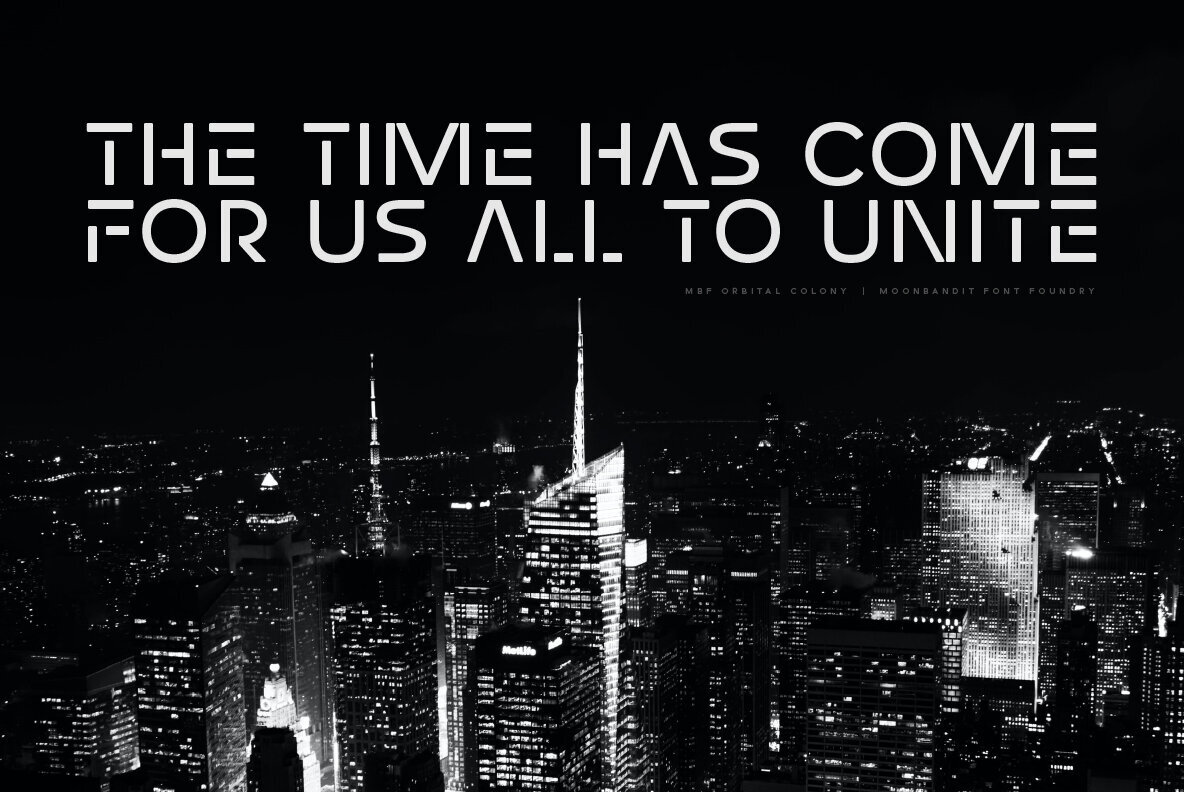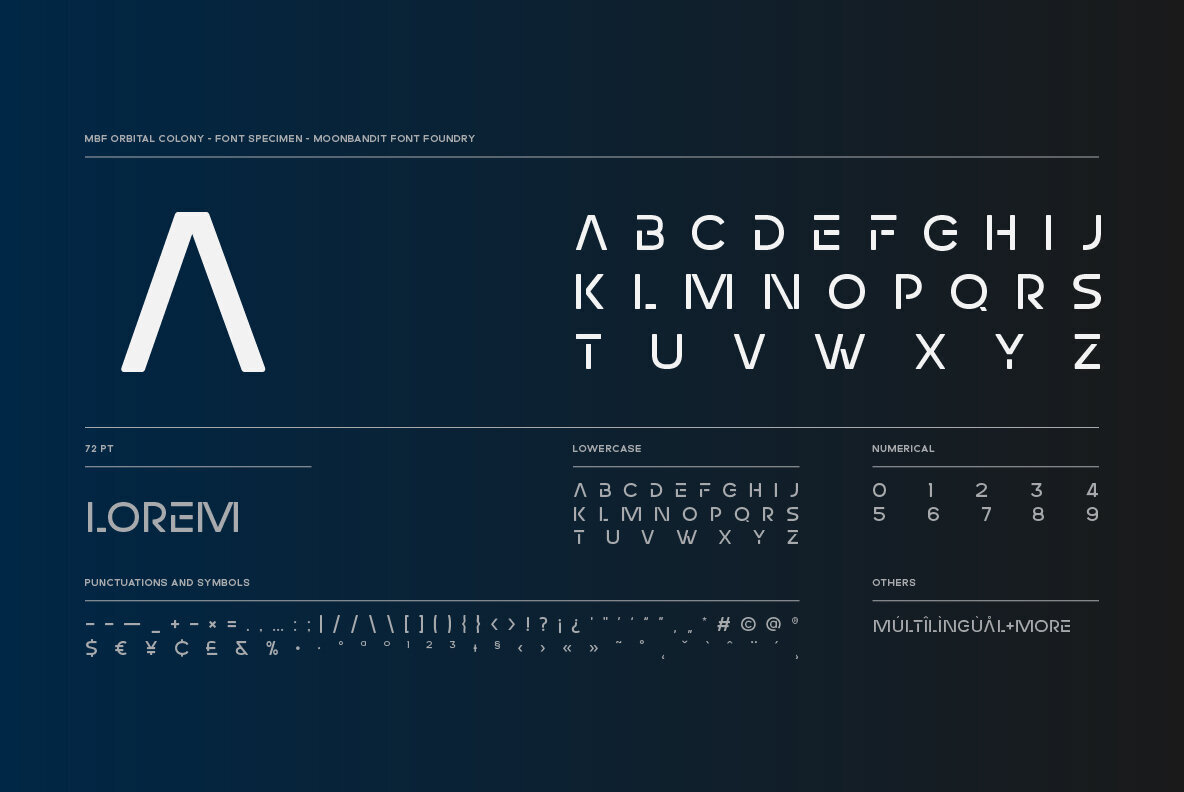
MBF Orbital Colony Font
MBF Orbital Colony
Orbital Colony is a modern futuristic scifi font. This typeface design is perfect for a clean and minimalist design theme. perfect usage includes logo, poster, display, headline, t-shirt design and many more.